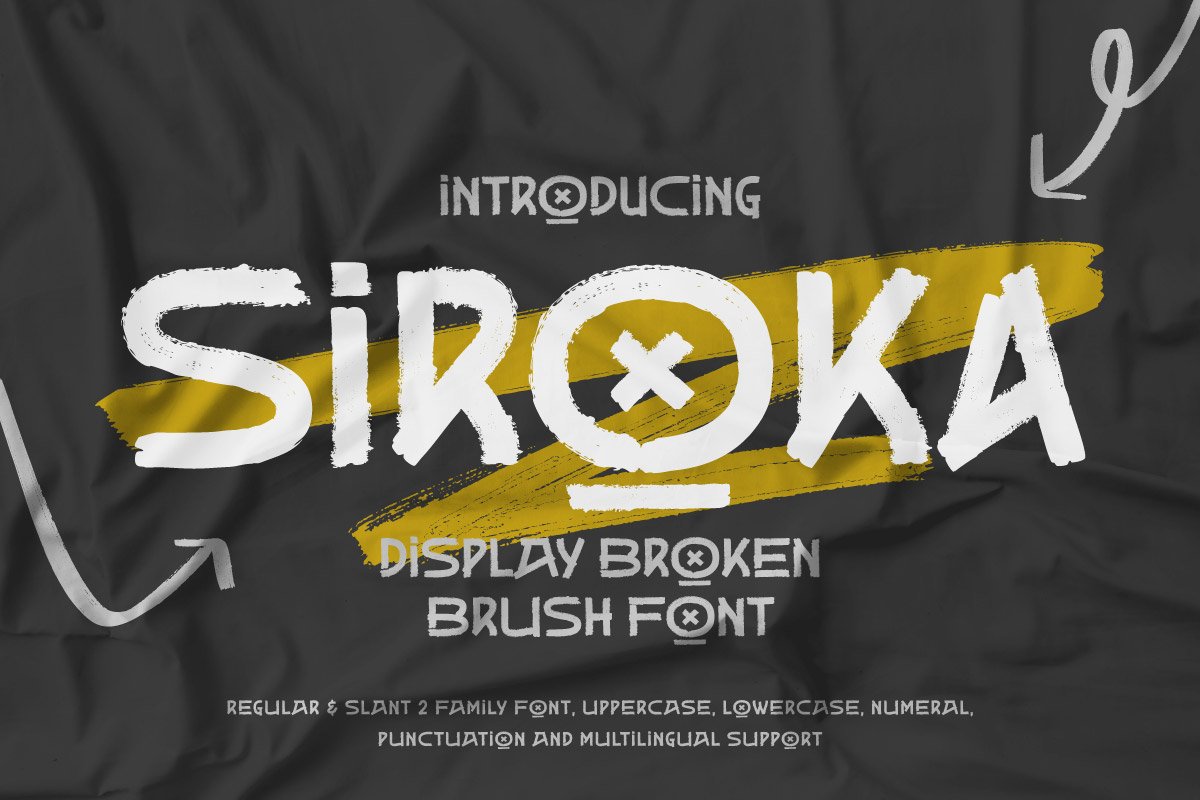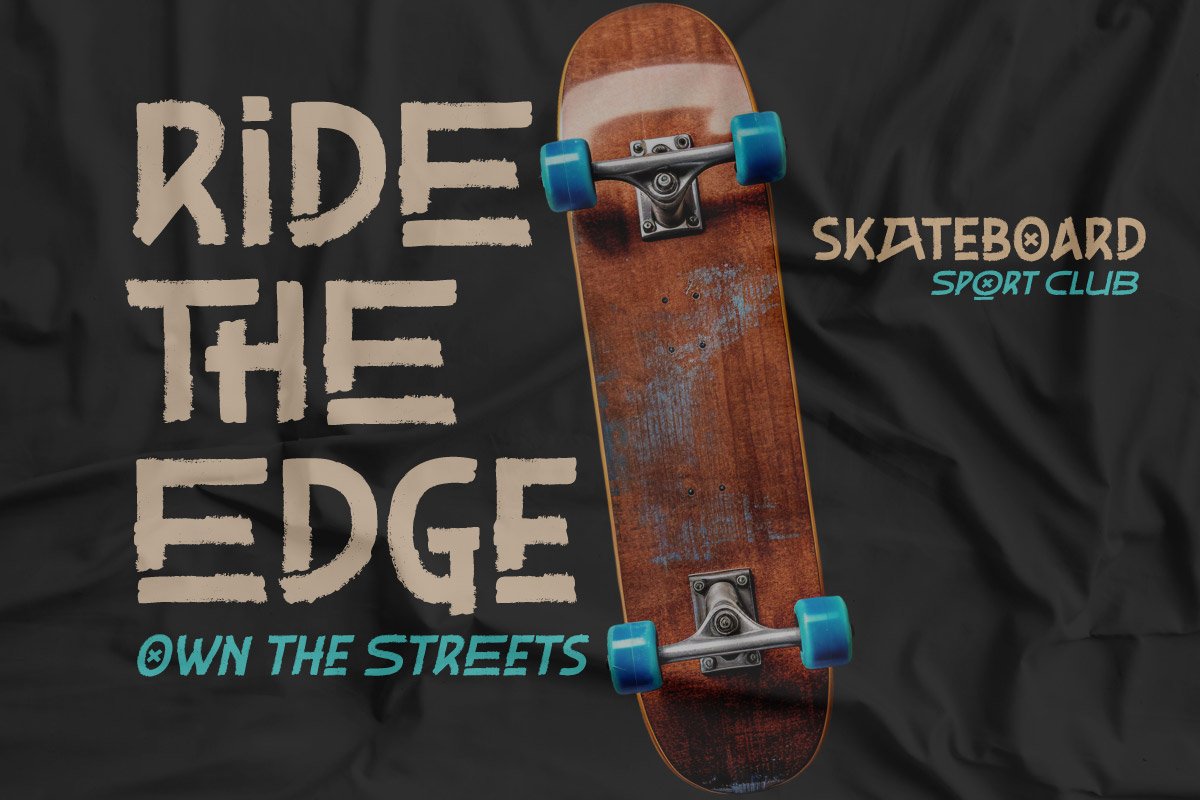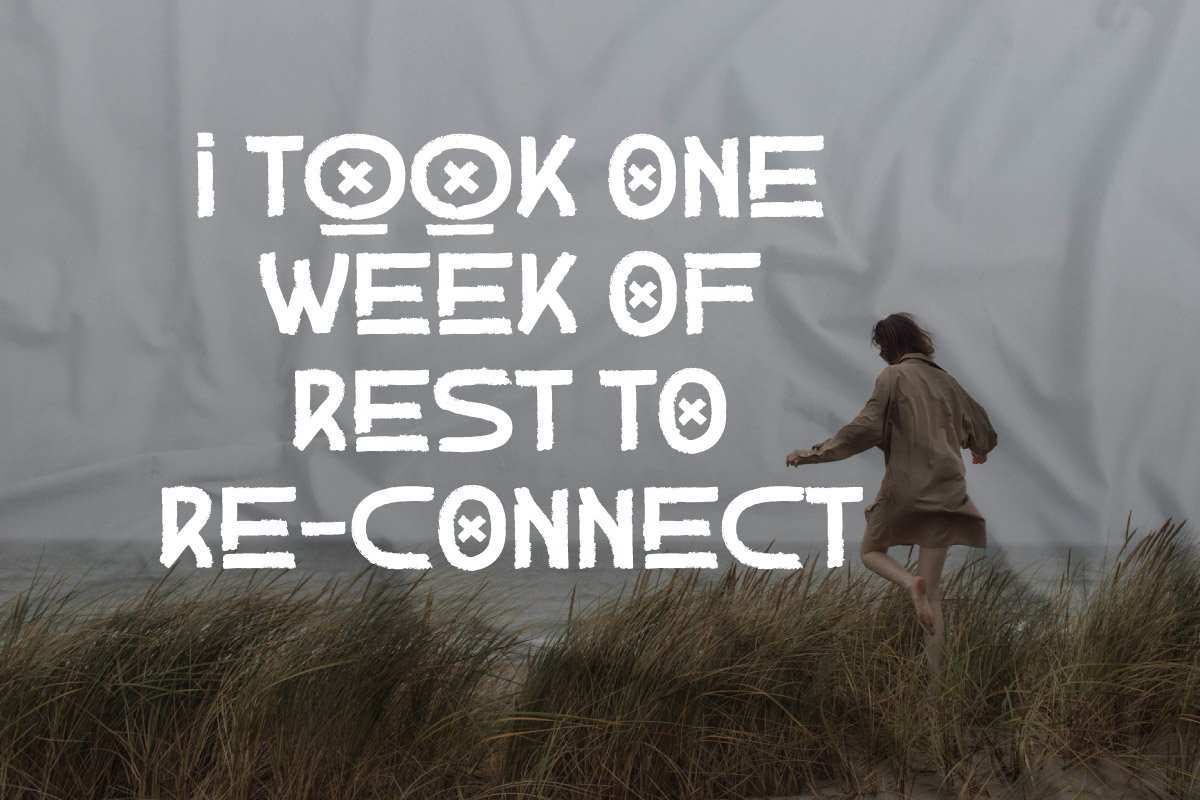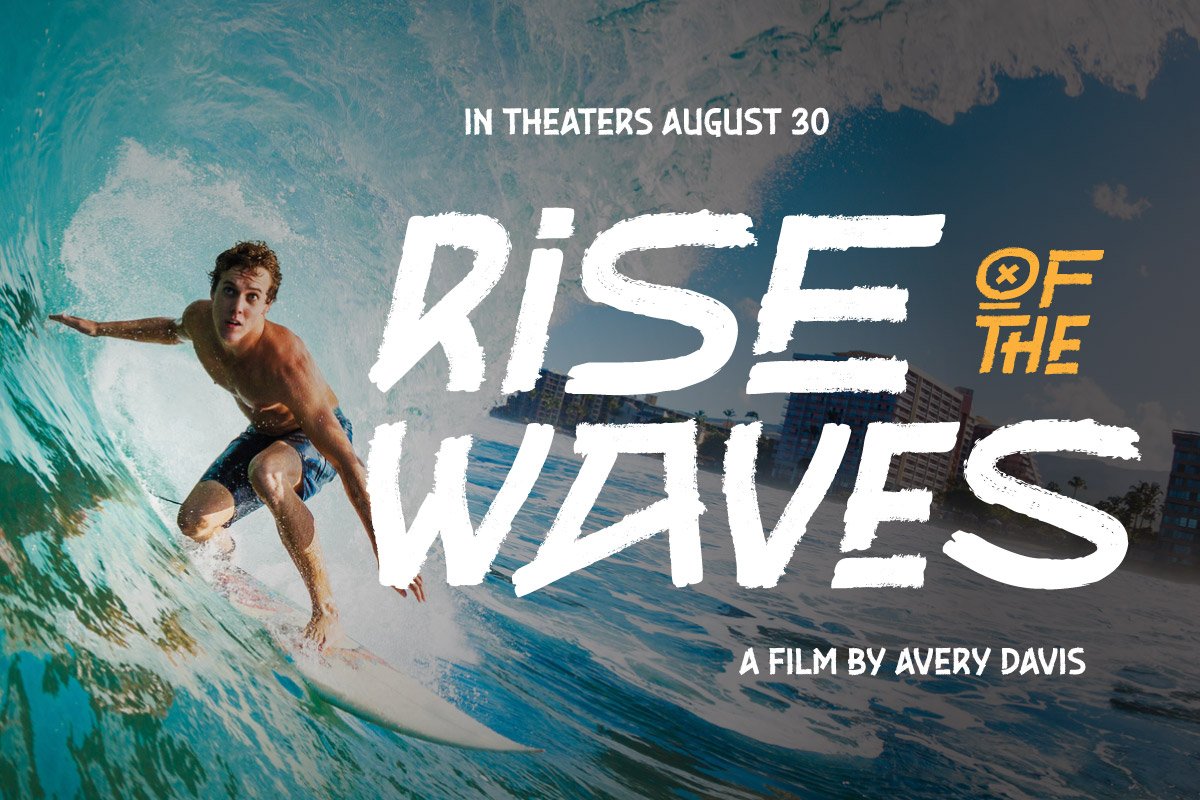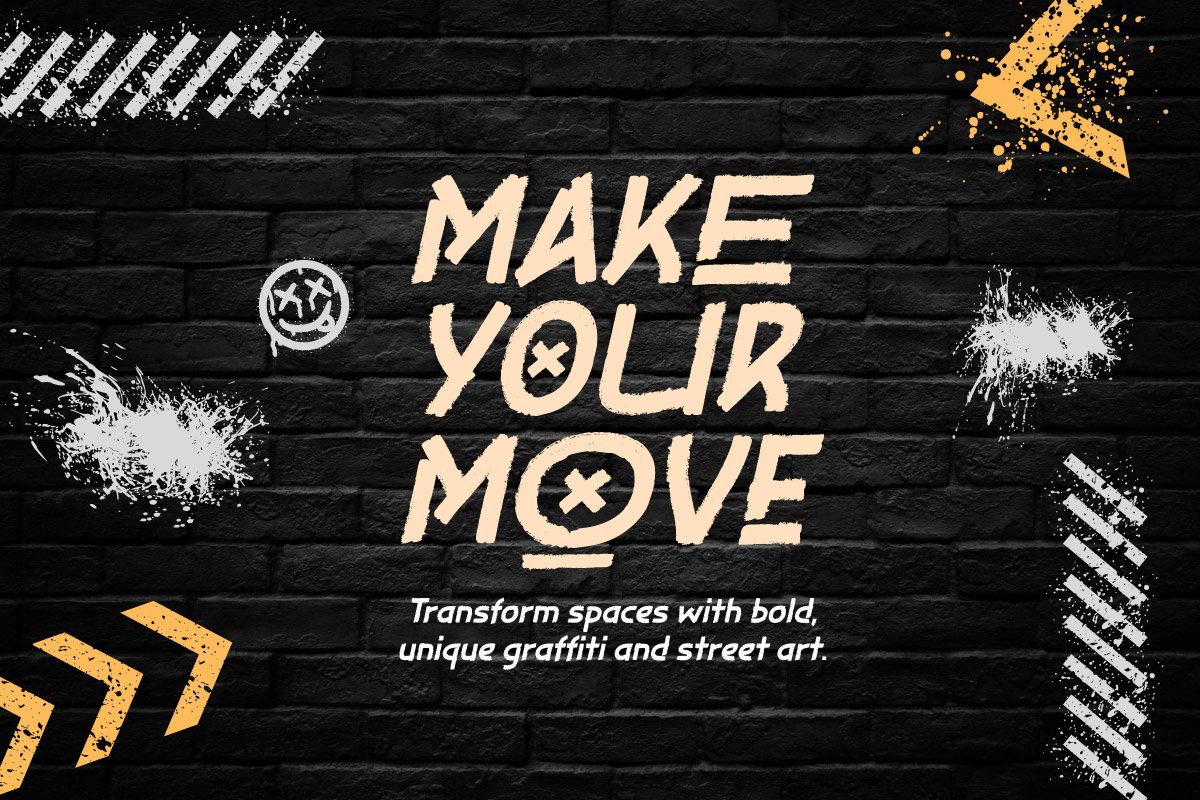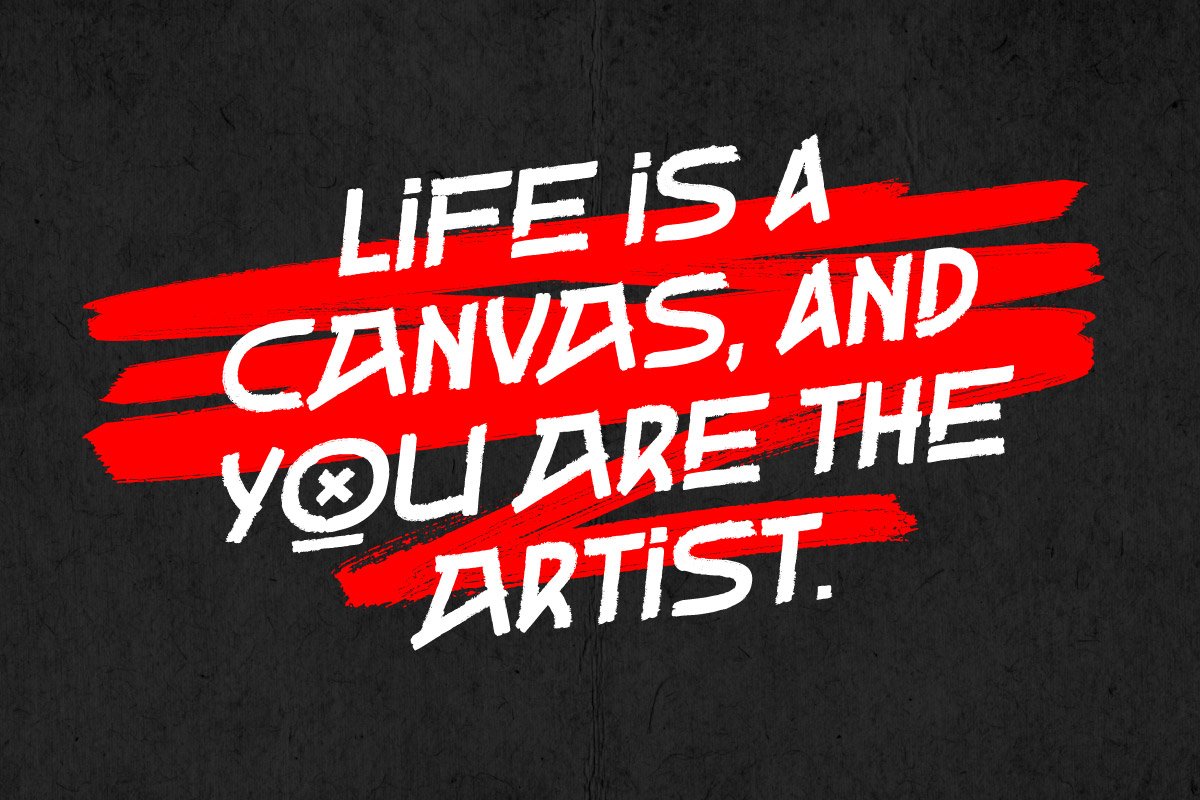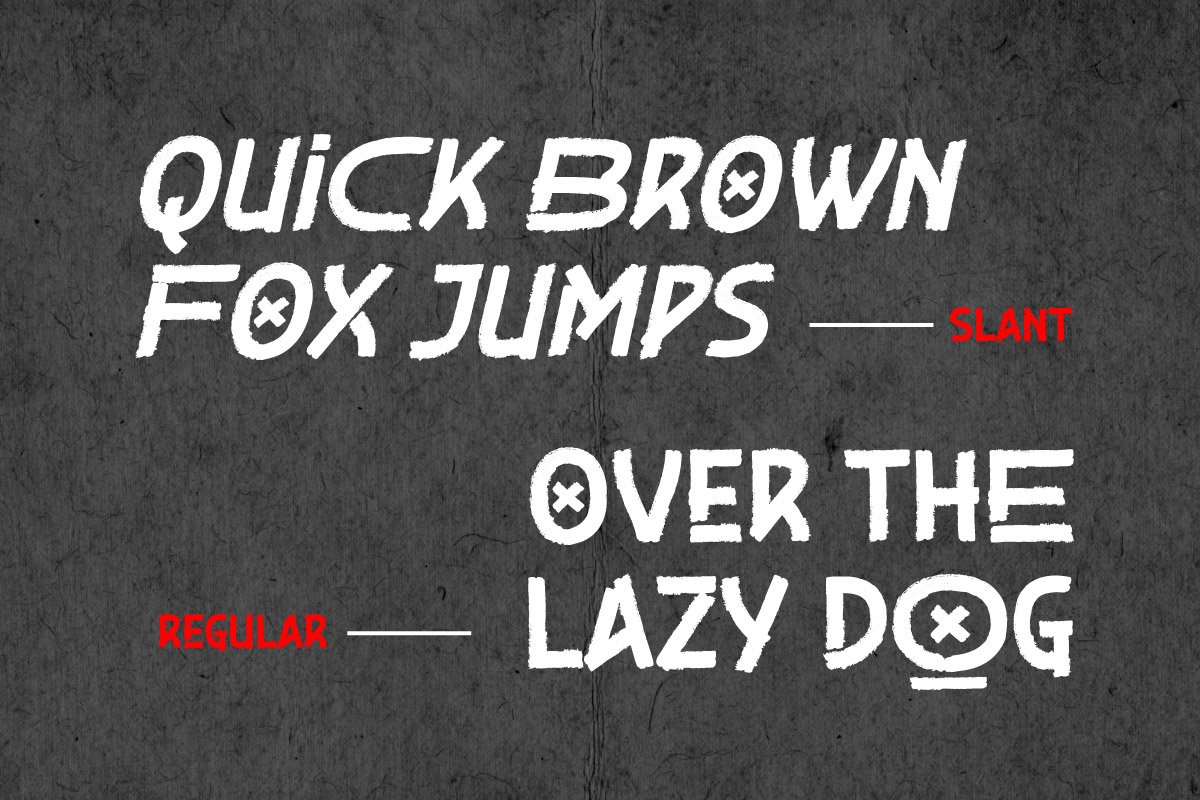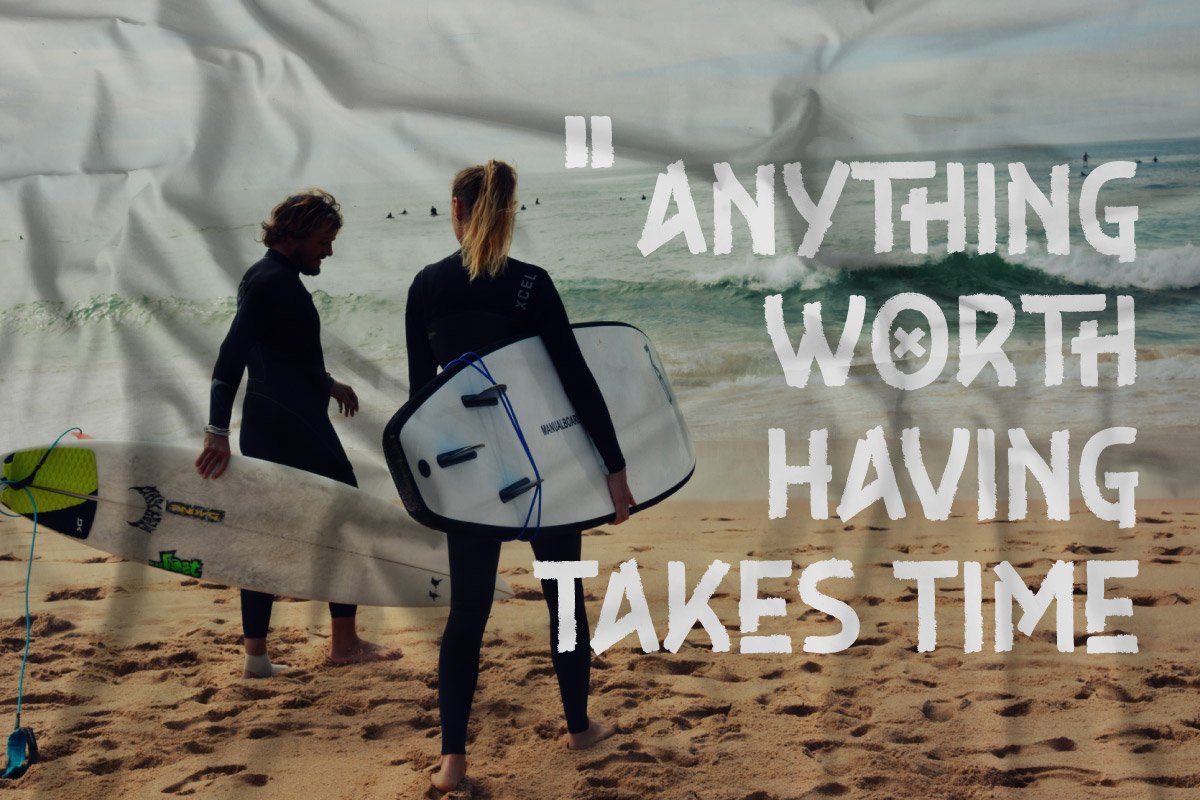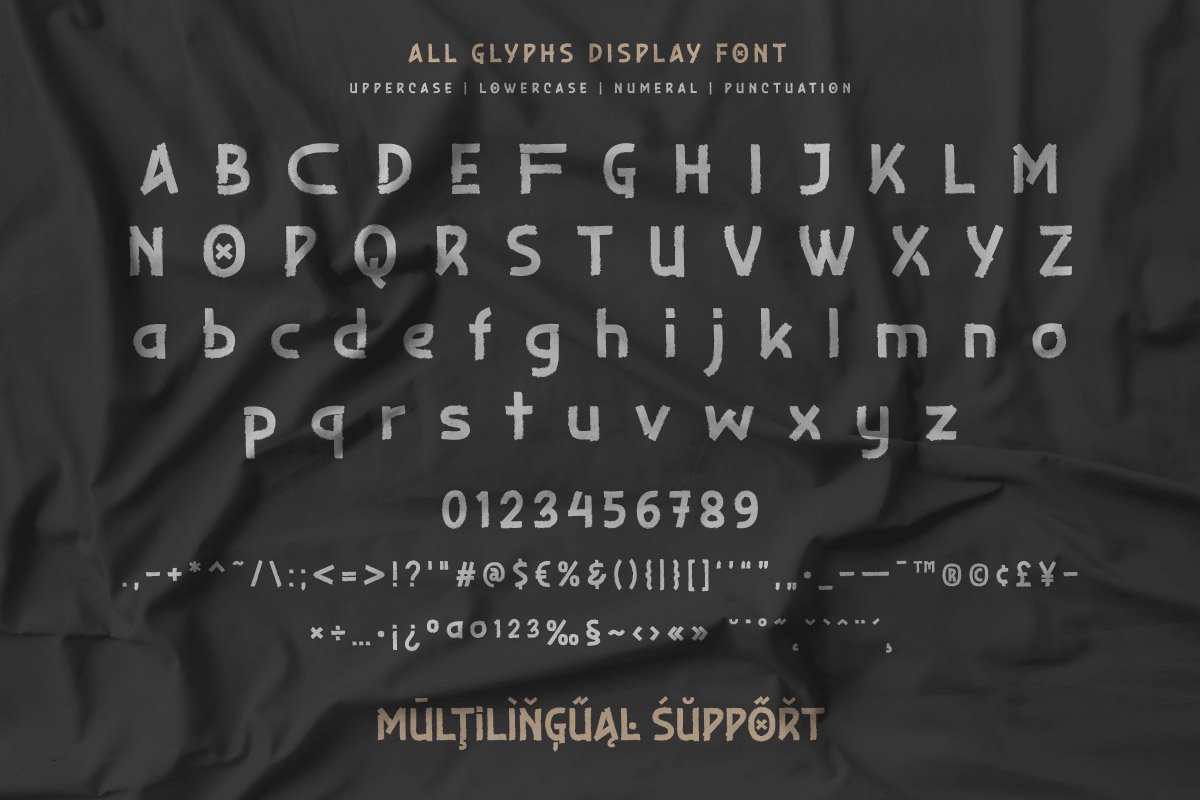
Siroka – Broken Font
Siroka is a bold and expressive broken brush font that brings raw energy and artistic imperfection into your design. With a rough, hand-painted texture and sharp broken strokes, Siroka is made for creators who want to make a rebellious, impactful visual statement. It comes in two versatile styles: Regular and Slant, giving you both steady power and dynamic movement in one font family.
Perfect for streetwear branding, music posters, album covers, edgy quotes, and grunge-style editorial design, Siroka blends chaos and control in every letterform. Its aggressive brush style and natural imperfections create an authentic, handcrafted vibe that grabs attention and adds a rebellious edge.
Whether you’re crafting a statement piece or building an entire brand with attitude, Siroka is your go-to font for bold, gritty expression.